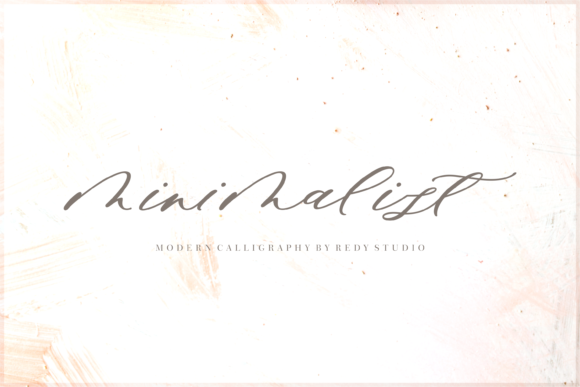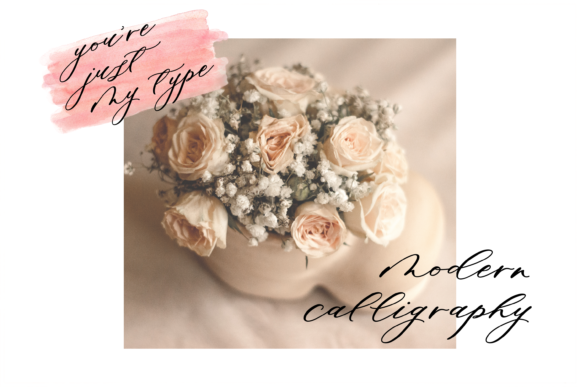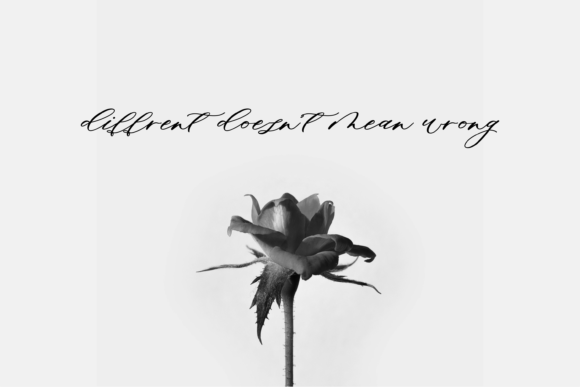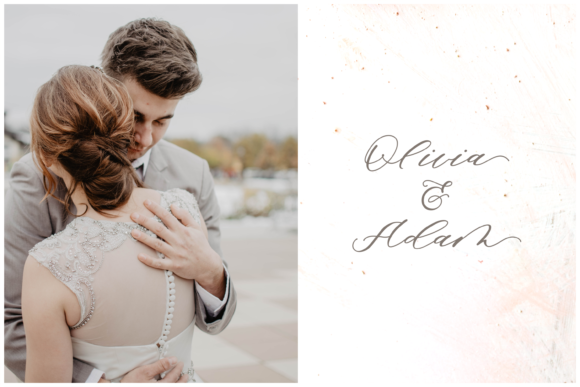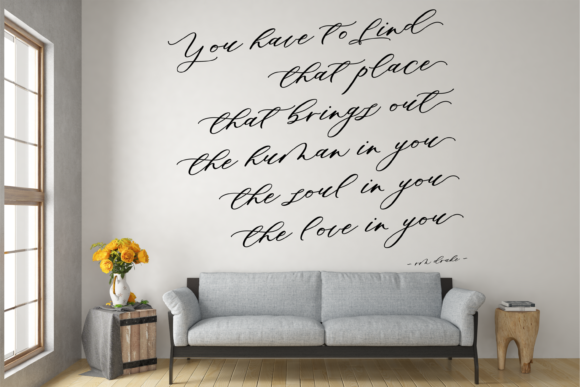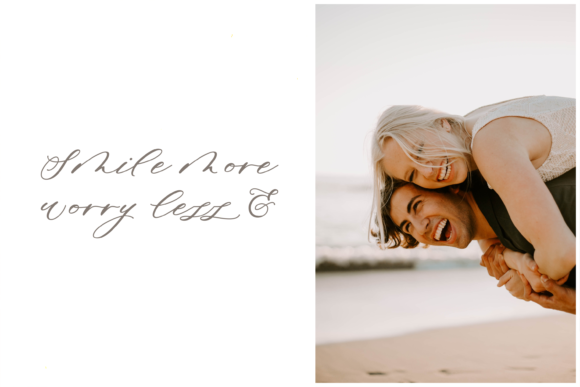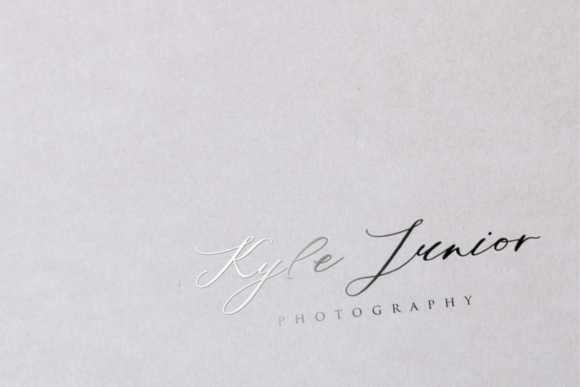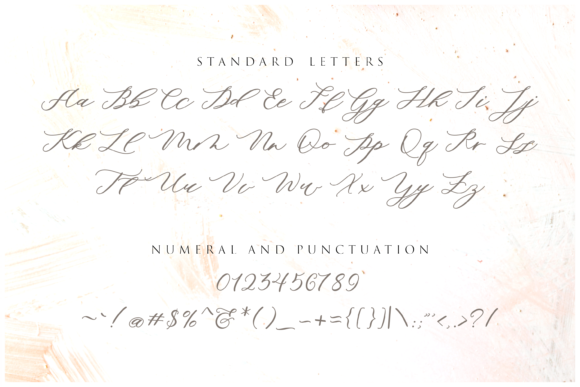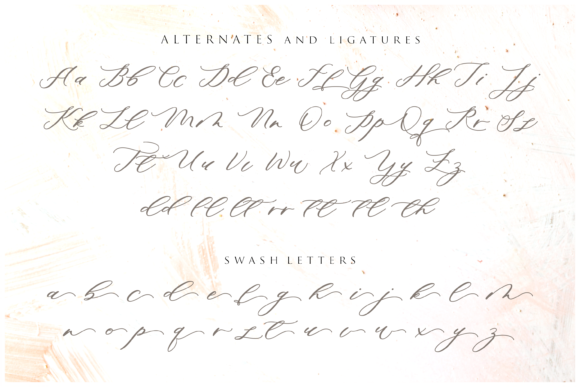
Minimalist Script Font
About Minimalist Script Font
The Minimalist is a beautiful script font with an Italian feel. It’s perfect for every design that needs an upscale and chic look.